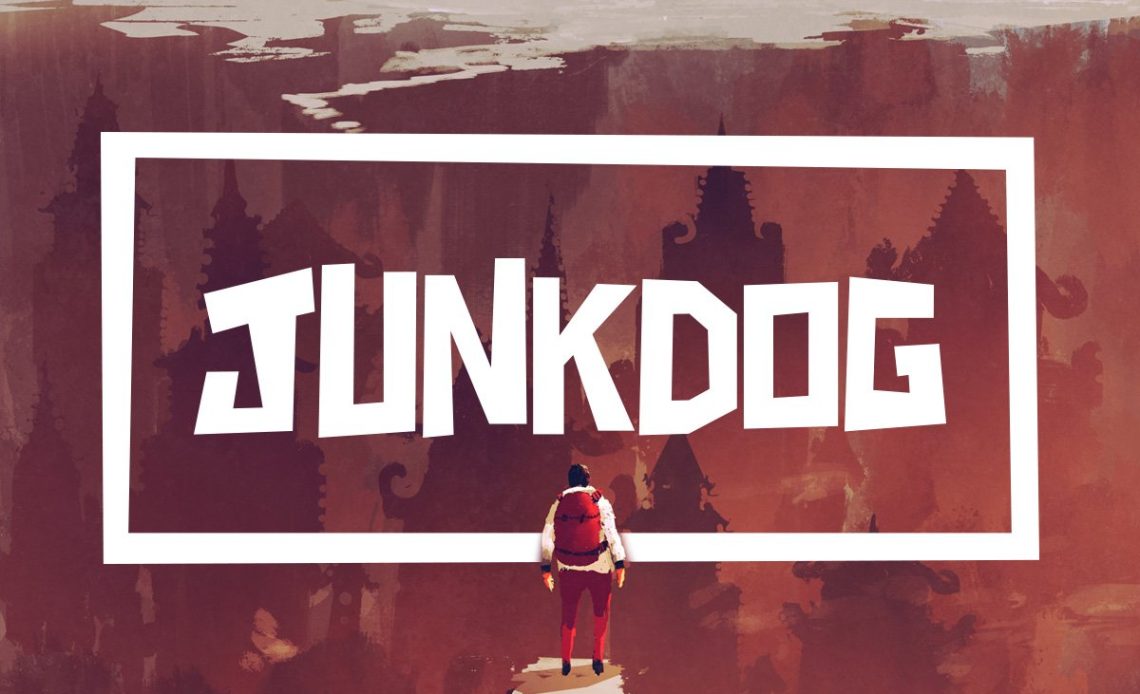
Introducing Junkdog Typeface - The Font with an Attitude!
Are you ready to take your designs to the next level? Look no further! Junkdog Typeface is here to add a punch of personality and style to your creative projects. Created by the talented Mehmet Tugcu, this blocky font is a true game-changer.
With its bold and edgy appearance, Junkdog Typeface is perfect for grabbing attention and making a statement. Whether you're designing eye-catching titles, powerful quotes, or captivating headlines, this font will make your words pop like never before. Say goodbye to boring and hello to a font that exudes confidence and character.
What sets Junkdog Typeface apart from the rest is its extensive range of alternate letter versions. Each letter comes with its own unique twist, giving you the freedom to experiment and create truly one-of-a-kind designs. Let your creativity run wild as you mix and match these alternate letters to craft visually stunning compositions that stand out from the crowd.
But Junkdog Typeface doesn't stop at just letters. It also includes uppercase multilingual letters, numbers, and punctuation marks, ensuring that you have everything you need to bring your ideas to life. Whether you're designing for English, Spanish, French, or any other language, this font has got you covered.